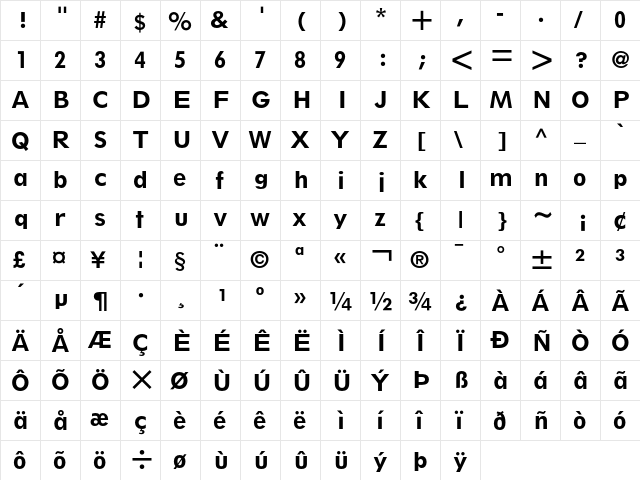
Spartan Heavy Classified
Design Context for Spartan Typeface
Spartan offers clean, dependable letterforms without strong stylistic allegiance, making it a practical choice for designers who need flexibility.
Pro Tip: Pair Spartan with a font of contrasting weight or personality to build a more expressive typographic hierarchy.